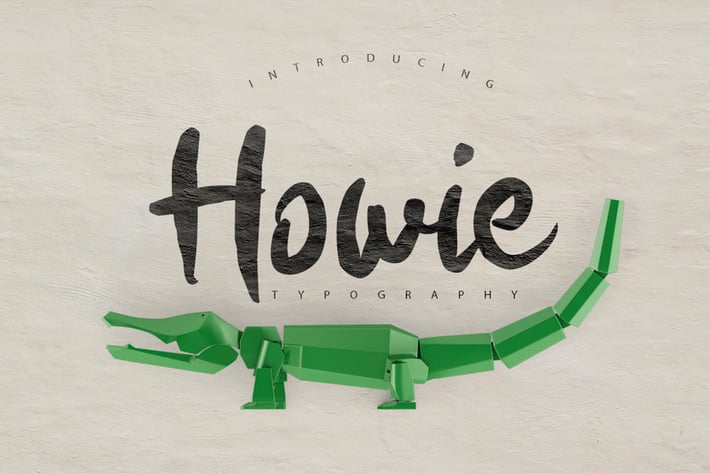
Howie Typeface
The font has been crafted completely on paper. After ever letter was perfected to create a coherent and smooth looking font, the font where digitized and smoothed over until they where perfect.
All letters. All numbers. All punctuations. All extensions. All symbols